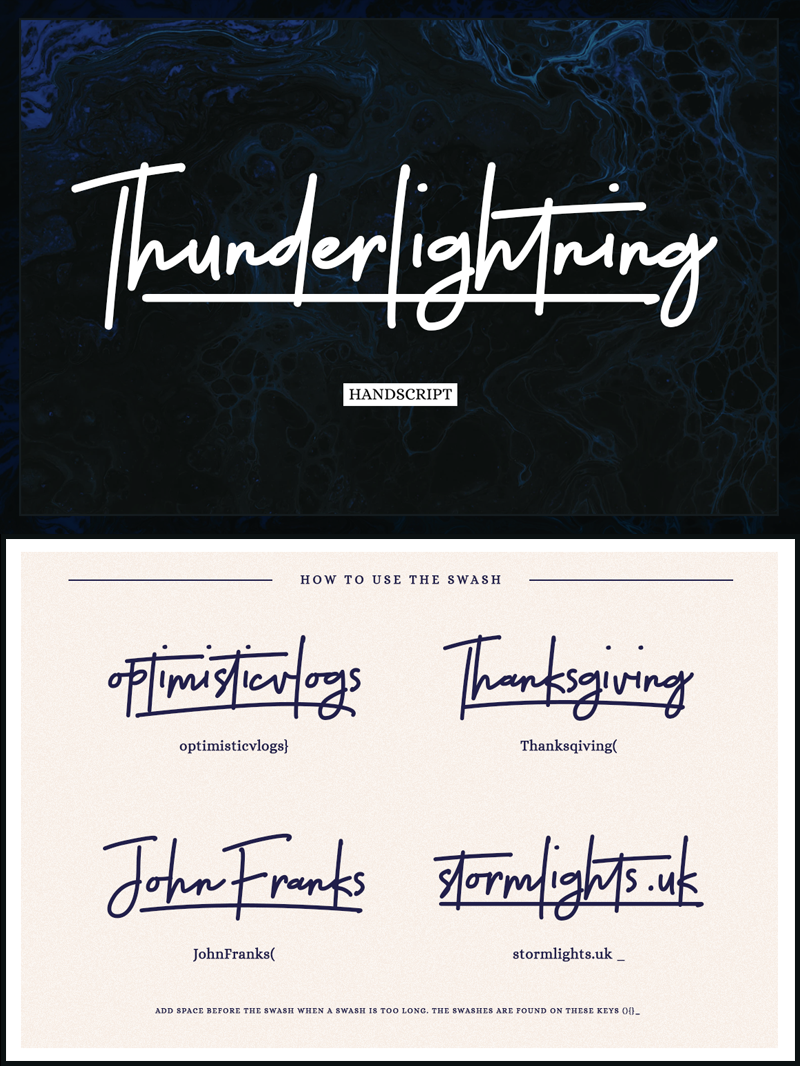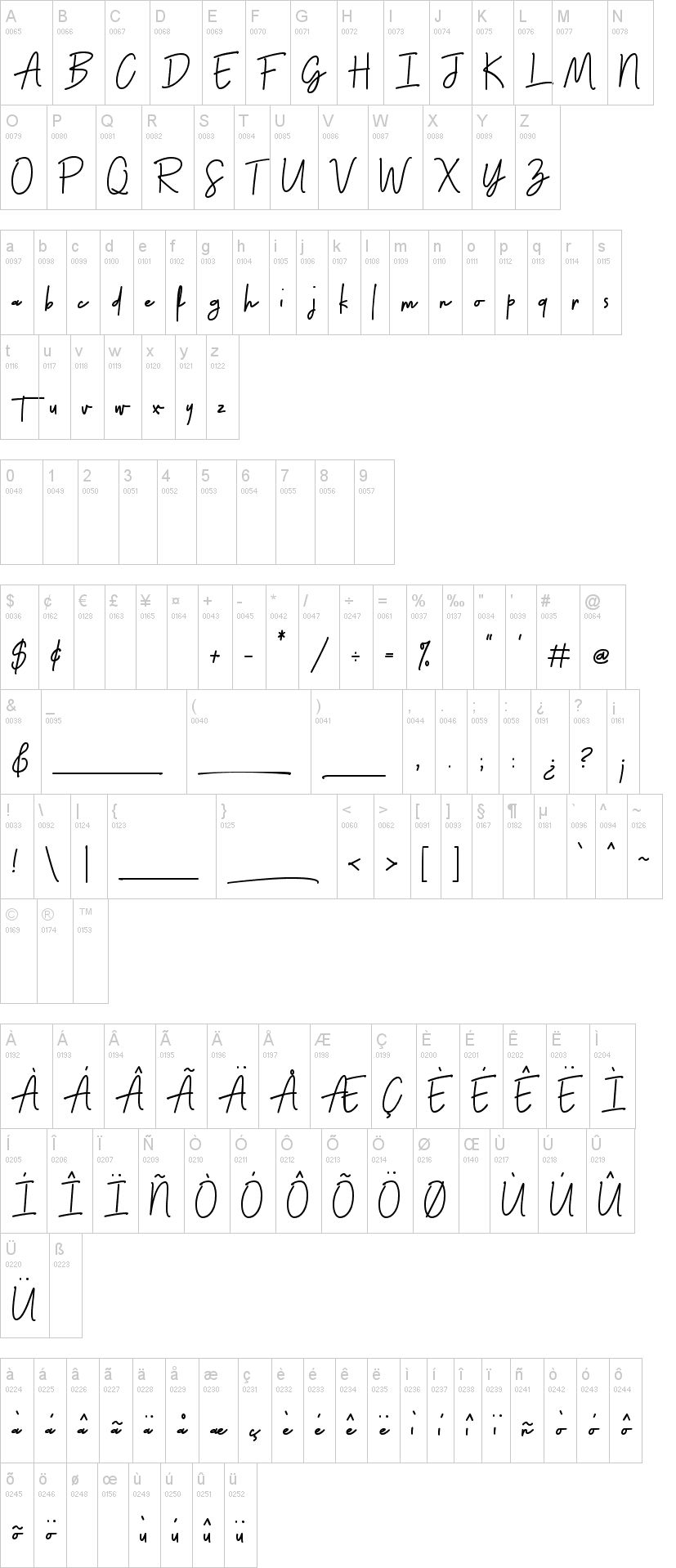
A bold script with multi-function. Thunderlightning is our newest handwritten font with in-glyph swashes. This swashes are very useful for that classic pen-written signatures and monoline logos. This font comes in 3 different looks - the Regular, Pen and Pen Italic. You can freely choose which one is best for your project.
Regular - has the bold monoline with strong output for a word.
Pen - a much thinner look with a realistic output of a pen ink.
Pen Italic - has the look of a quickly written words using a pen.
The swashes are found on these keys: (){}_
Add space before a swash if a swash is too long for a word.